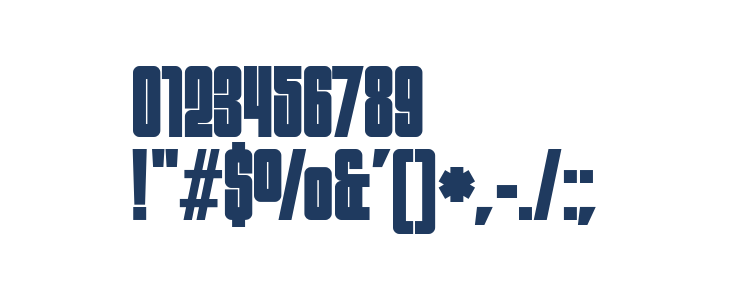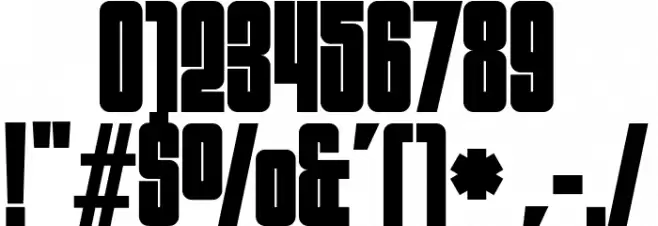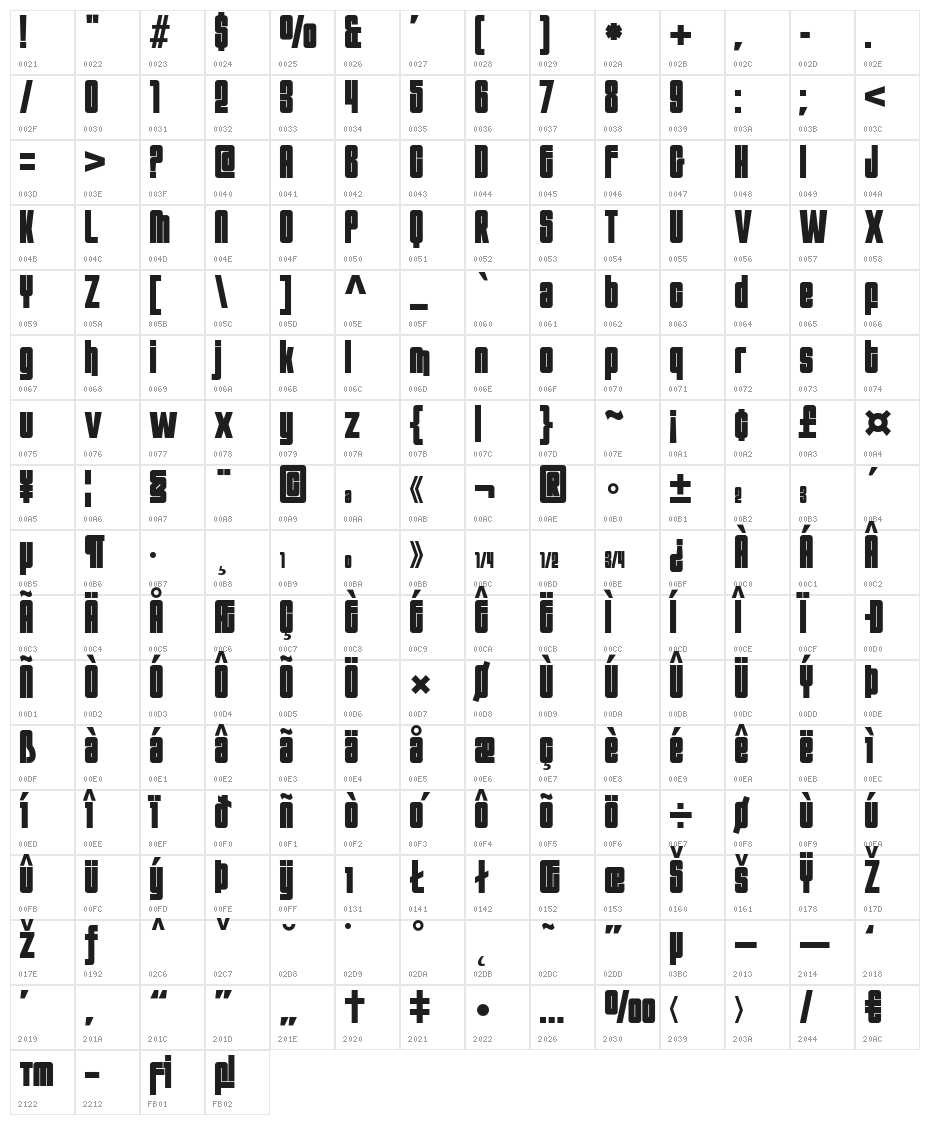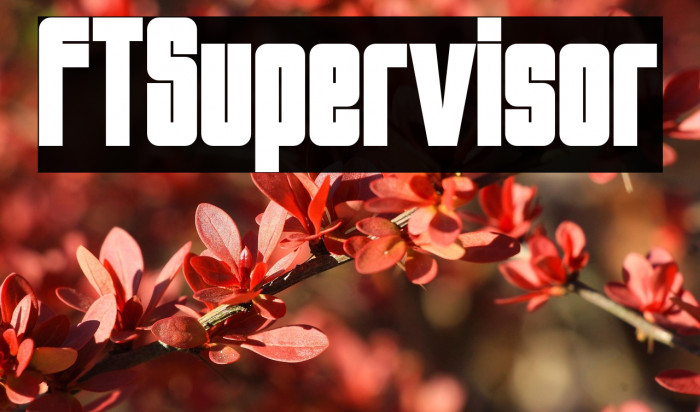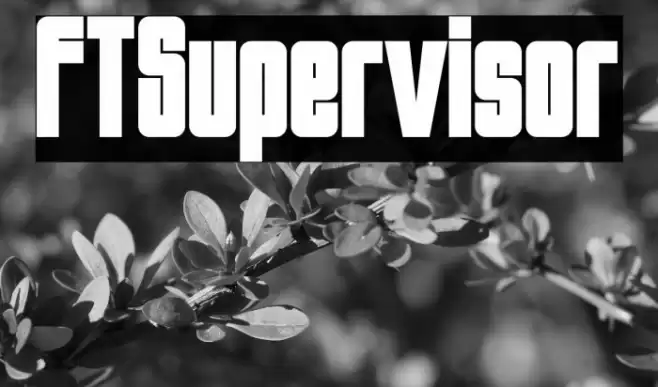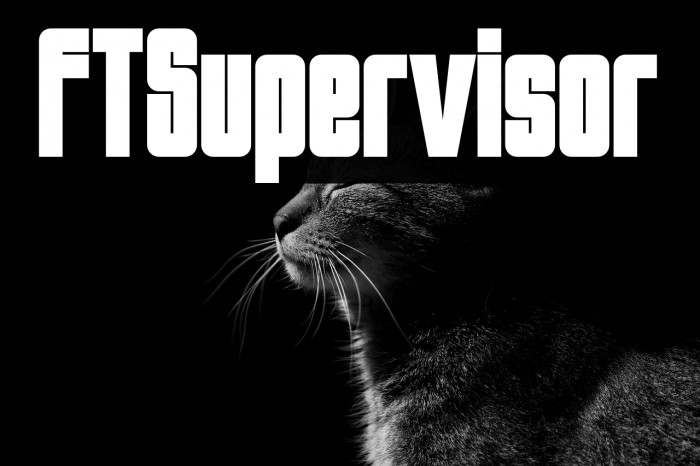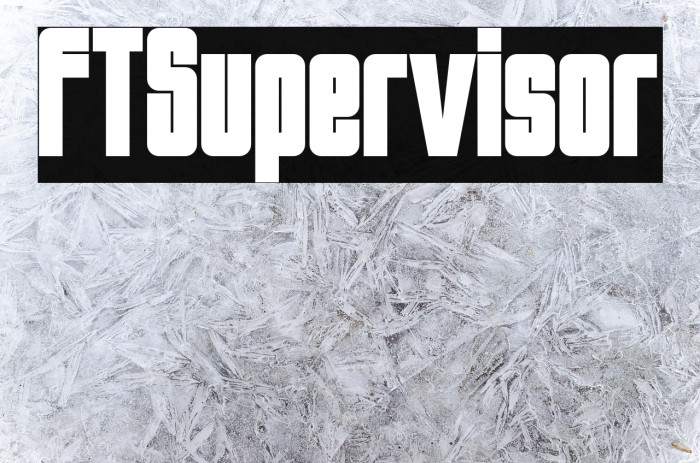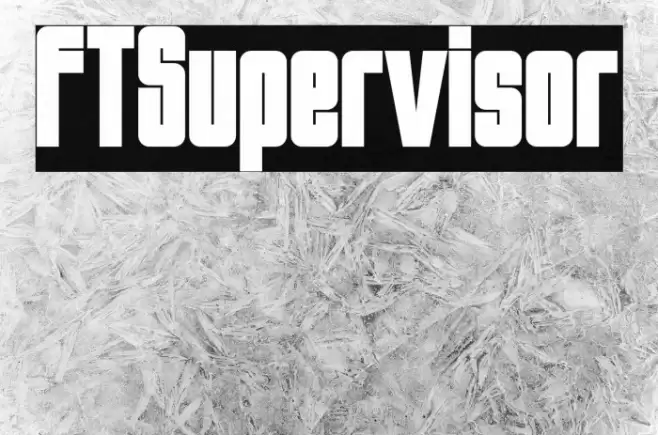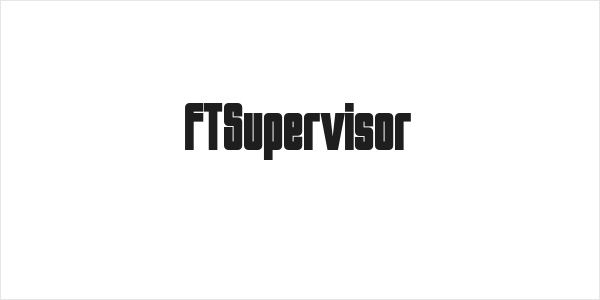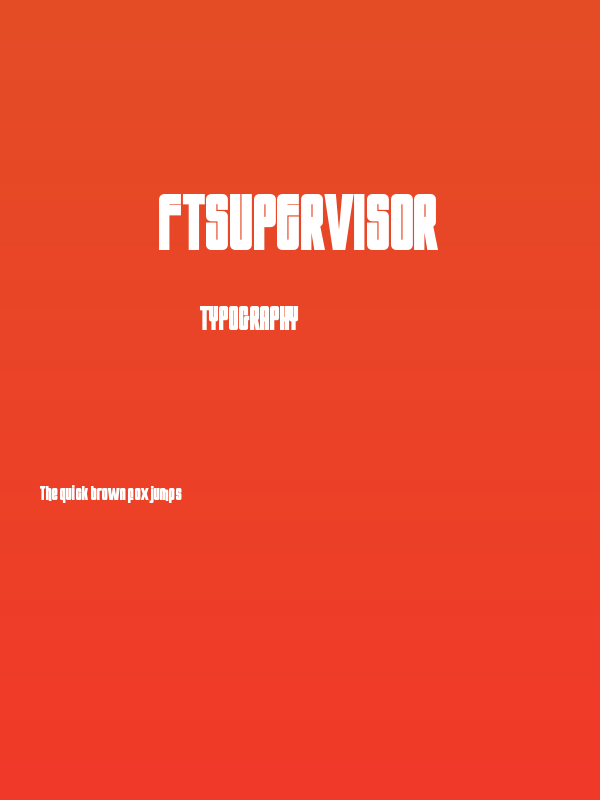
FTSupervisor Font
FTSupervisor Description
This bold and striking font features a strong geometric design with thick, uniform strokes that create a powerful visual impact. The characters are tightly spaced, enhancing the compact and robust appearance. The uppercase and lowercase letters maintain a consistent height, contributing to a cohesive and structured look. The numbers and special characters follow the same bold style, ensuring uniformity across all elements. This font's design is ideal for making a statement, with its high contrast and solid presence.